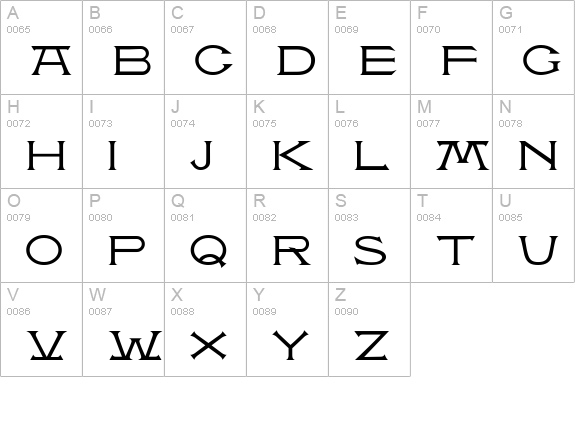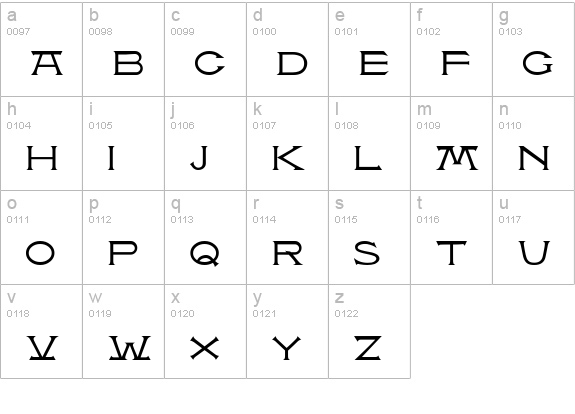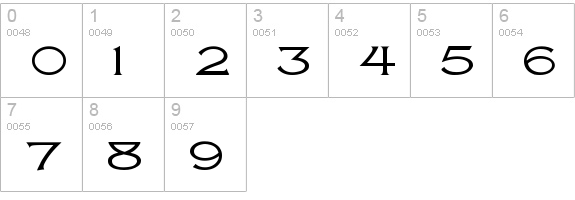
Atlantis MF Font Details
Introducing Atlantis MF font, a stunning typeface that exudes elegance and sophistication. With its intricate details and sleek design, Atlantis MF is perfect for a wide range of projects, from branding to editorial design. This versatile font is sure to make a statement and elevate your work to the next level. The best part? Atlantis MF is available for free download at FontsMarket.com. Don't miss out on the opportunity to add this beautiful font to your collection and bring a touch of luxury to your designs. Download Atlantis MF today and let your creativity soar!